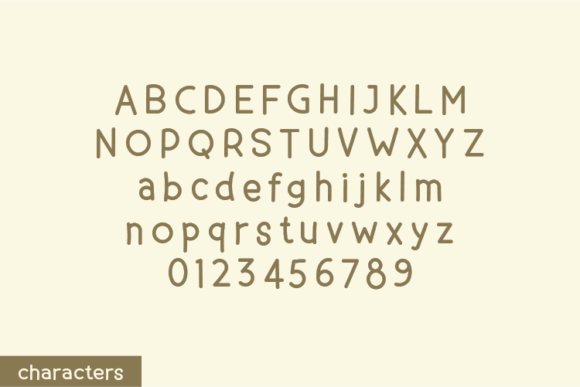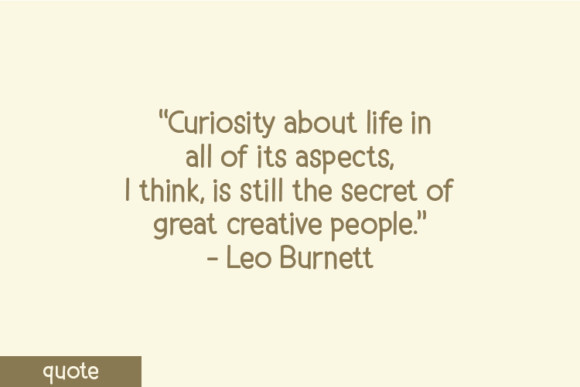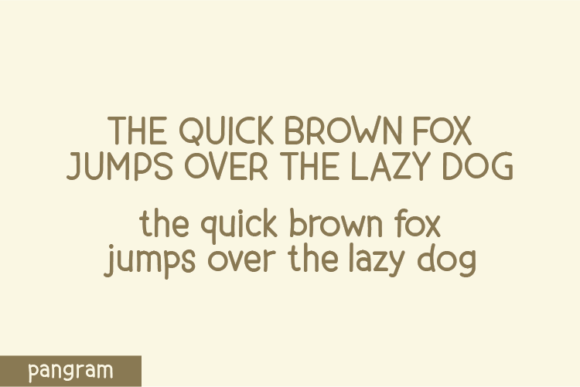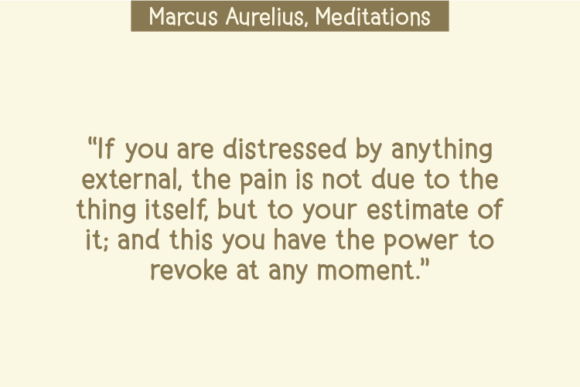
Where Handwriting Meets Design
Have you ever been inspired by a scribbled note or a handwritten quote that resonated deeply with you? For many of us, there’s something special about the imperfections and uniqueness of handwritten text that can evoke emotions and create a personal connection. As designers, we often strive to capture this essence in our work, but it can be challenging to replicate the authenticity of handwriting.
| 📌 Product Name | Expressive Font |
| 👤 Author | Hanna Bie |
Enter the Expressive Font, a natural handwritten font that brings a touch of human touch to your designs. This beautiful font is designed to mimic the imperfections and nuances of real handwriting, making it perfect for quotes, notes, tees, and any product design that requires a personal touch. For designers, the Expressive Font is a valuable tool that can add depth and emotion to their work, setting it apart from more traditional fonts.
Expressive Font Key Features
- Unique Characteristics: Expressive Font features a unique blend of organic and geometric shapes, creating a distinctive and expressive aesthetic that sets it apart from other fonts.
- Kerning and Ligatures: The font includes advanced kerning and ligature features, ensuring that text is displayed with precision and flair, even in complex layouts and compositions.
Expressive Font Review
Overall, I was excited to dive into the Expressive Font and see what it had to offer. Here’s my honest review.
- The Expressive Font has a unique, hand-drawn feel that adds a touch of personality to any design project.
- The font is highly customizable, with a wide range of weights and styles to choose from.
- The Expressive Font is also surprisingly legible, making it a great choice for body text as well as headlines.
- The Expressive Font can be a bit overwhelming in large blocks of text, as the hand-drawn feel can start to feel cluttered.
- The font is not suitable for situations where a more formal or traditional feel is required.
- The Expressive Font may require some additional design effort to integrate seamlessly with other fonts in a project.
Overall, I think the Expressive Font is a great choice for designers looking to add some personality to their work. While it may have some limitations, its unique feel and high level of customizability make it a valuable addition to any design toolkit.
Expressive Font: A Practical Application Guide
Tips for Getting the Most Out of Expressive Font
Expressive Font is perfect for creating eye-catching headlines, titles, and captions. Use it to add a touch of elegance and sophistication to your designs.
Expressive Font is commonly used in:
- Marketing materials and brochures
- Graphic design projects and posters
Alternatives to Expressive Font for Designers
1. Display Font
A Display Font is used for headlines, titles, and other prominent text where visual emphasis is key. It’s often more decorative and attention-grabbing than a standard font. Use it when you want to create a strong visual impact or draw attention to a particular section of your design.
Compared to Expressive Font, Display Font is more dramatic and attention-seeking. While Expressive Font is meant to evoke emotions through subtle variations in letterforms, Display Font is designed to make a bold statement.
2. Script Font
A Script Font is used for titles, invitations, and other text where a more elegant, handwritten feel is desired. It’s often used in conjunction with a standard font for body text. Use it when you want to add a touch of sophistication or whimsy to your design.